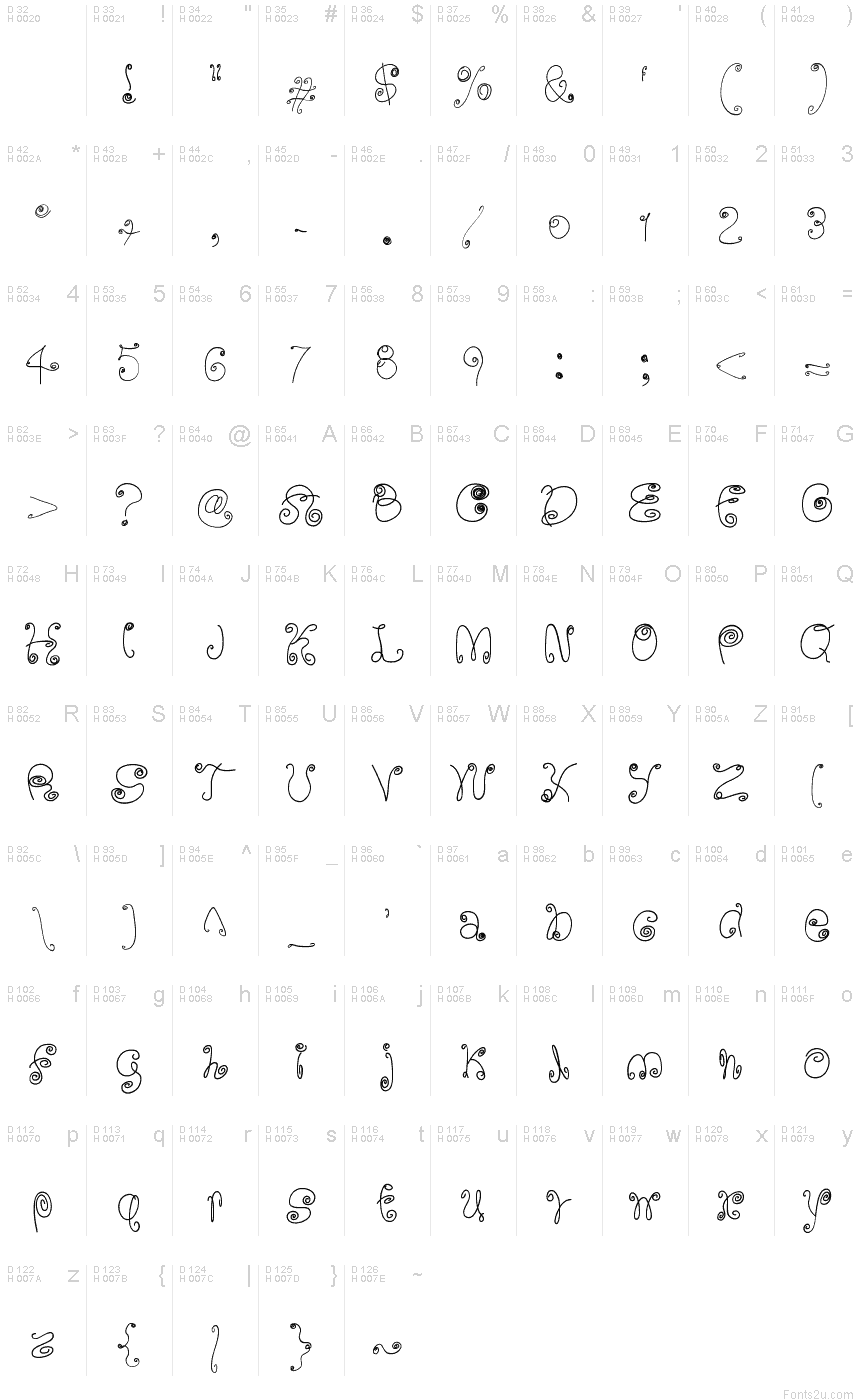
SquigglyLittleWiggly
Squiggly Little Wiggly by Food on the Wall is a free curly display font with looping, monoline letters and an exuberant hand-drawn shape. Spirals curl through the forms, and uneven widths keep the alphabet deliberately unruly.
Its loose curls can turn children's posters into playful decoration, yet the same winding strokes suit whimsical music merchandise. Sweet-shop packaging and party invitations are also credible homes for its candy-like loops. In editorial design, its doodled ornament could enliven craft magazine feature openers and cover lines.